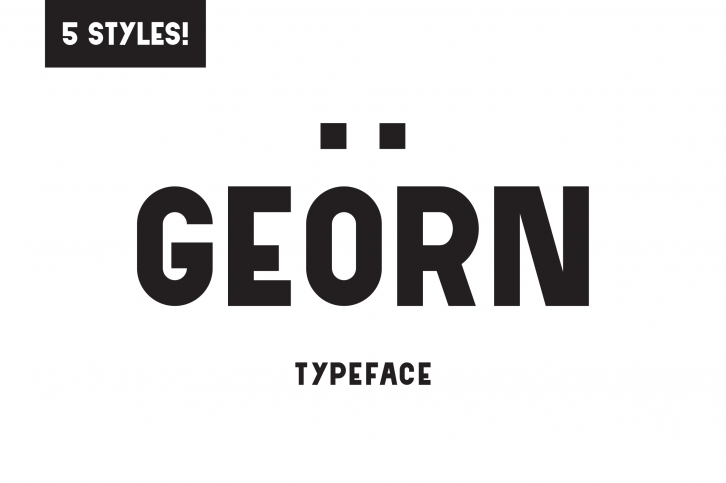
Georn Typeface is a beautiful font that was designed by MikeHillDesign. It's a great choice for designers and creatives who need such a font. It was released on September 4, 2017 and the file size is 5.42 MB. Georn Typeface may give a more youthful, expressive and casual look to your project. It is a very beautiful, refined, elegant, and high-quality font.